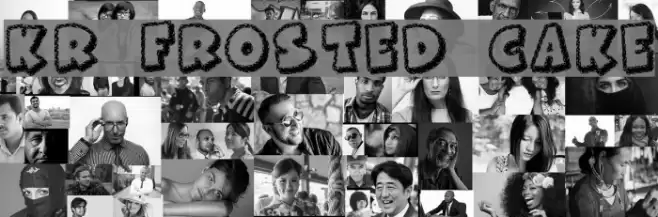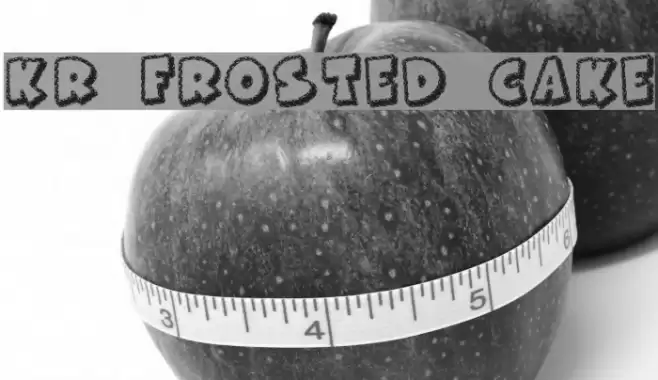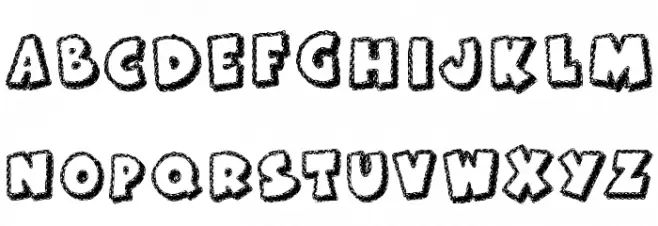
KR Frosted Cake Font
KR Frosted Cake Description
This playful and whimsical font features bold, rounded characters with a textured, frosted appearance. Each letter is outlined with a thick, uneven stroke, giving it a hand-drawn, decorative feel. The texture within the letters resembles a sugary frosting, adding a fun and festive touch. The font maintains a consistent weight throughout, with each character exhibiting a uniform height and width. The overall design is eye-catching and suitable for projects that require a lighthearted and creative aesthetic.
- Proposed Projects: Ideal for children's book covers, birthday invitations, playful branding, and festive event posters.